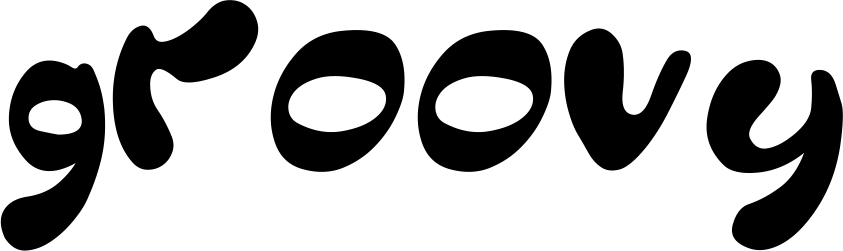
Groovy Font
Let your typography be done perfectly with the association of fancy Groovy font to be pleasing to the eyes of all your target audiences at a glance. Although this groovy font comes up with a happy, friendly, comic, and modern look, it can not deny its classic feel too.
Its creative chunky letters are satisfactory to preserve its value and merit in designing many posters, cartoons, cards, and apparel to be applauded by all designers despite just being available in lowercase letters.